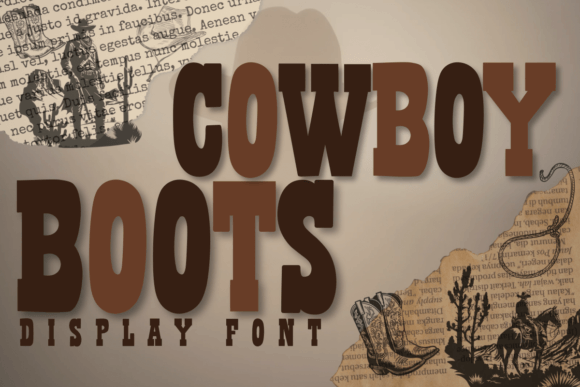
Cowboy Boots Font: Saddle Up Your Designs with a Wild West Twist
Are you looking to add a touch of the Wild West to your designs? Look no further than the Cowboy Boots font. This bold and stylish western font is perfect for creating eye-catching posters, signs, and fun projects that evoke the spirit of the old West. With its big, clear letters and rugged charm, Cowboy Boots font is sure to make your words stand out from the crowd.
Key Features of Cowboy Boots Font
- Bold and Stylish: The Cowboy Boots font boasts a bold and stylish design that’s reminiscent of the Wild West. Its thick lines and rugged edges give it a distinctive look that’s sure to grab attention.
- Western-Inspired: This font is inspired by the classic typography of the American West. Its unique style is perfect for creating designs that evoke the spirit of cowboys, saloons, and open ranges.
- Big and Clear Letters: The Cowboy Boots font features big, clear letters that are easy to read. This makes it perfect for creating posters, signs, and other designs where you want your message to stand out.
- Versatile: This font is versatile and can be used for a wide range of design projects, from posters and signs to fun projects like party invitations and greeting cards.
Design Uses for Cowboy Boots Font
The Cowboy Boots font is perfect for a wide range of design projects. Here are some ideas to get you started:
- Posters: Create eye-catching posters for movies, concerts, or events with a Wild West theme. The Cowboy Boots font is perfect for creating bold and stylish titles that grab attention.
- Signs: Add a touch of the Wild West to your signs with the Cowboy Boots font. This font is perfect for creating signs that evoke the spirit of the old West, from saloon signs to wanted posters.
- Fun Projects: The Cowboy Boots font is also perfect for fun projects like party invitations, greeting cards, and other craft projects. Add a touch of the Wild West to your designs and make them stand out.
- Branding: Use the Cowboy Boots font to create a bold and stylish brand identity for your business. This font is perfect for businesses that want to evoke the spirit of the Wild West, from cowboy-themed restaurants to outdoor gear stores.
Typography Tips for Using Cowboy Boots Font
Here are some typography tips to keep in mind when using the Cowboy Boots font:
- Use it sparingly: The Cowboy Boots font is bold and stylish, but it can be overwhelming if used too much. Use it sparingly to create emphasis and add a touch of the Wild West to your designs.
- Pair it with a simple font: Pair the Cowboy Boots font with a simple font to create contrast and add visual interest to your designs. A simple sans-serif font like Arial or Helvetica is a good choice.
- Experiment with colors: The Cowboy Boots font looks great in a range of colors, from bold and bright to muted and earthy. Experiment with different colors to find the one that works best for your design.
- Play with textures: Add texture to your designs by using the Cowboy Boots font with different textures, from leather to wood. This can add a tactile feel to your designs and make them more engaging.
Inspiration from the Wild West
The Cowboy Boots font is inspired by the Wild West, a time and place that’s rich in history and culture. Here are some ideas to get you started:
- Classic Western Movies: Watch classic Western movies like “The Searchers” or “Butch Cassidy and the Sundance Kid” for inspiration. Pay attention to the typography and design elements used in the movie titles and posters.
- Western Art: Look to Western art for inspiration, from Frederic Remington to Charles Russell. Pay attention to the use of bold lines, vibrant colors, and rugged textures.
- Vintage Signs: Look at vintage signs from the Wild West era for inspiration. Pay attention to the typography, colors, and textures used in these signs.
The Cowboy Boots font is a bold and stylish western font that’s perfect for adding a touch of the Wild West to your designs. With its big, clear letters and rugged charm, this font is sure to make your words stand out. Whether you’re creating posters, signs, or fun projects, the Cowboy Boots font is a great choice. So why wait? Saddle up your designs with the Cowboy Boots font and add a touch of the Wild West to everything you create.